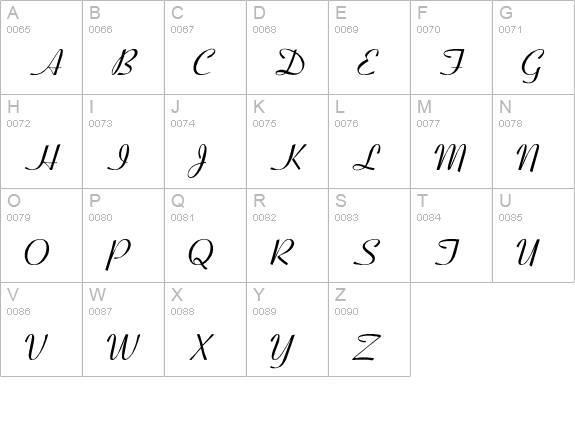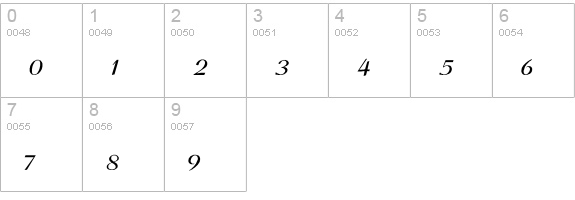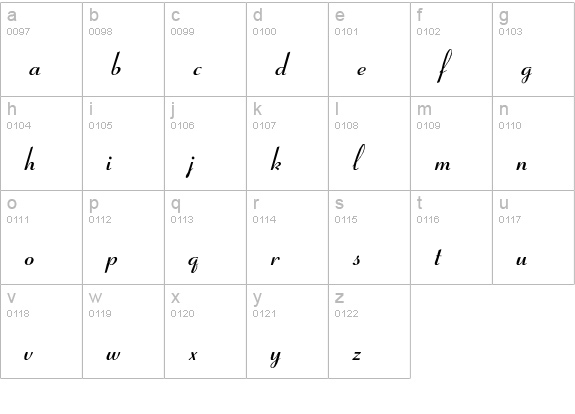
Coronet-SemiBol font exudes an elegant and sophisticated charm with its balanced proportions and subtle curves. This timeless typeface strikes the perfect balance between classic and modern, making it a versatile choice for a wide range of design projects. The semi-bold weight adds a touch of boldness and presence to your text, making it stand out without overpowering the overall design. What's even better is that Coronet-SemiBol font is available for free download at FontsMarket.com. Whether you're working on branding materials, invitations, or web design, this font is sure to elevate your project with its timeless appeal. Don't miss out on the opportunity to add this beautiful typeface to your font collection today!